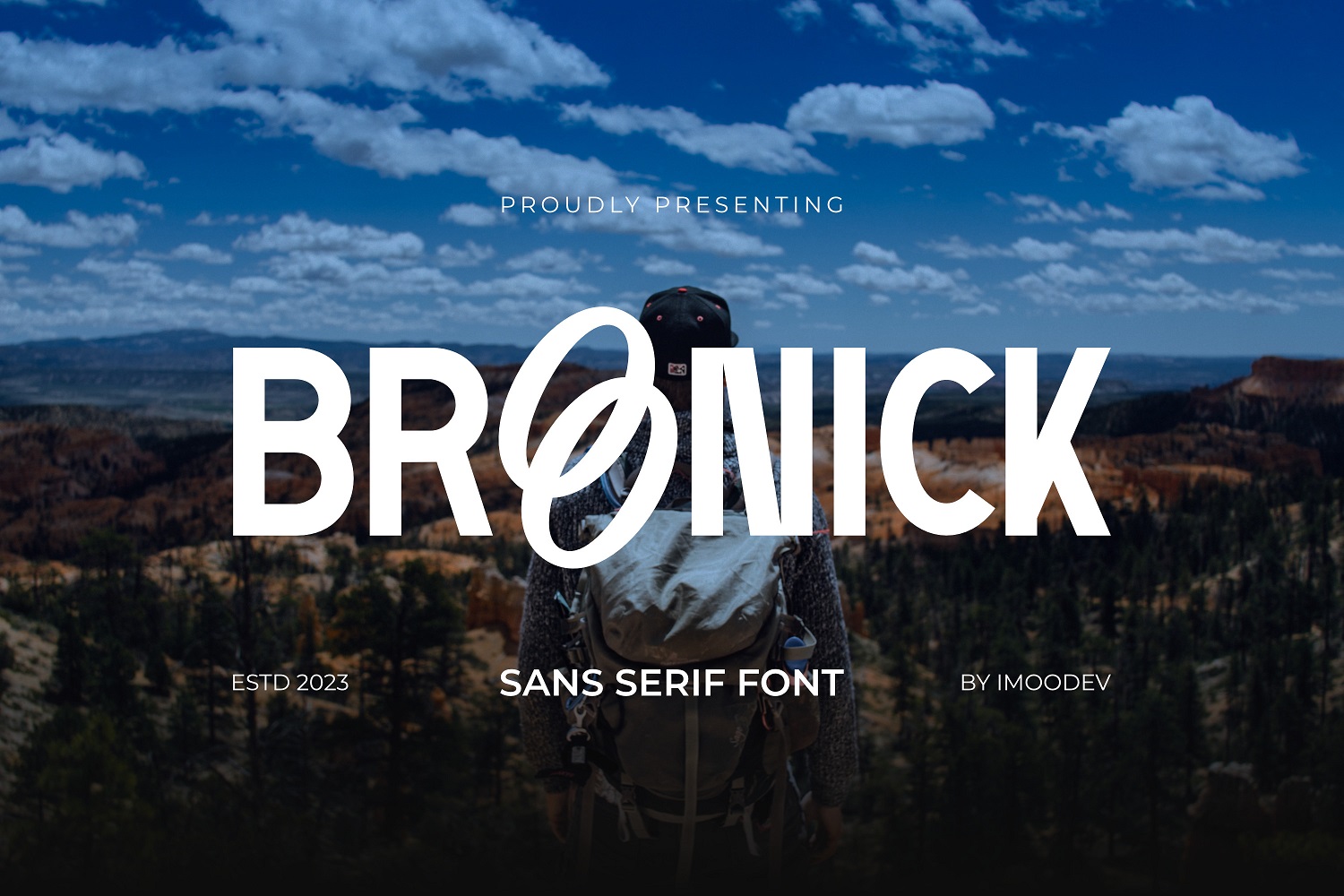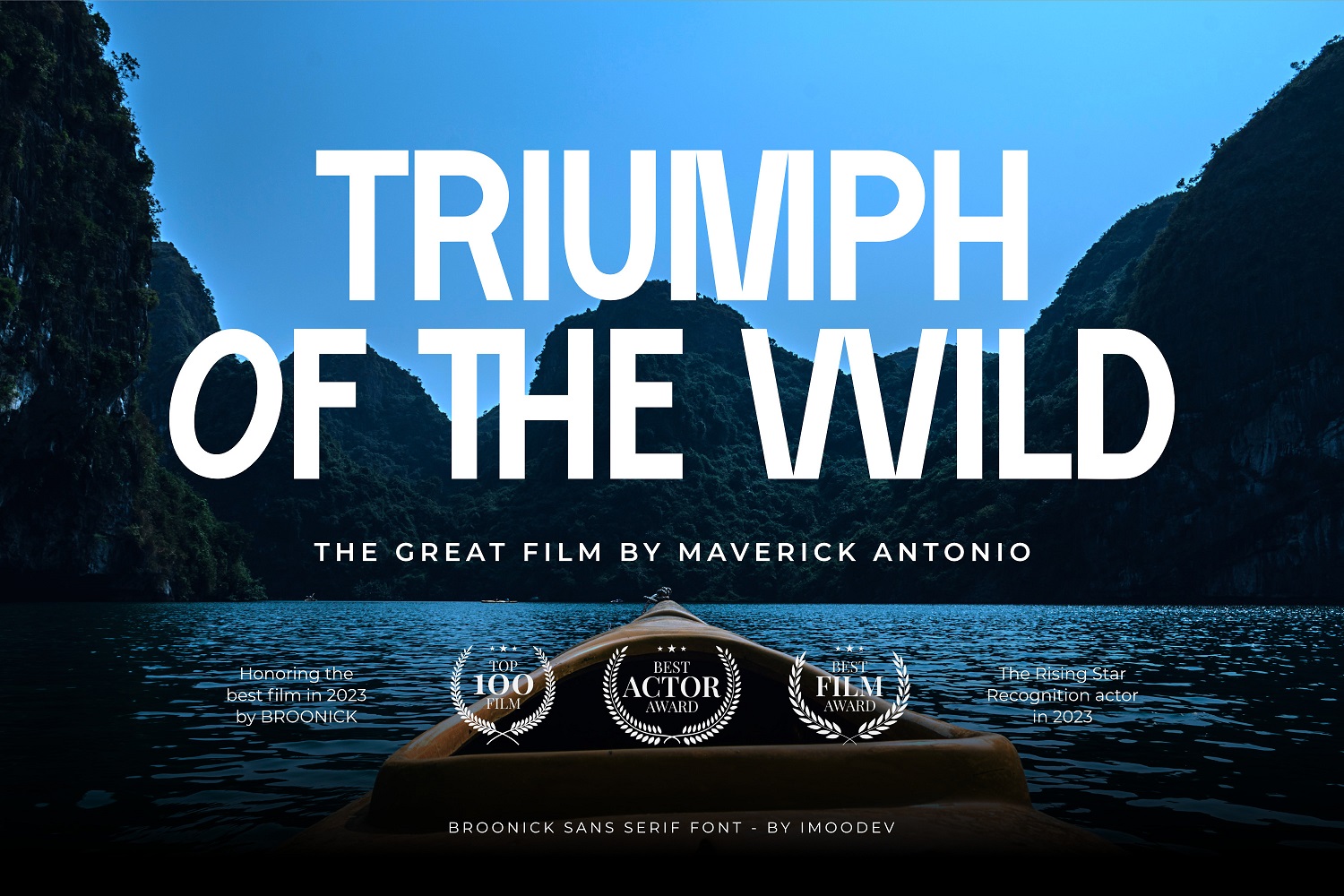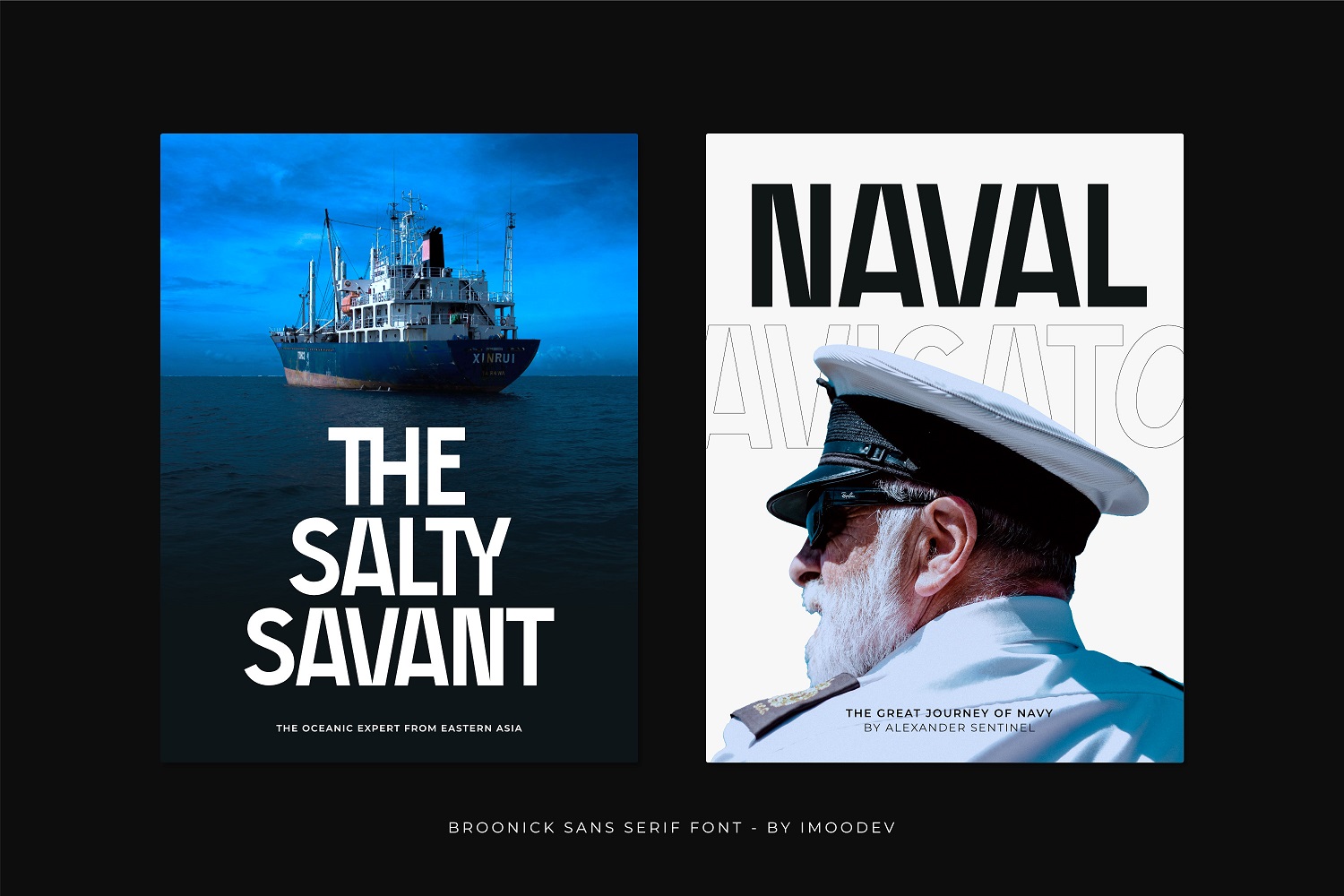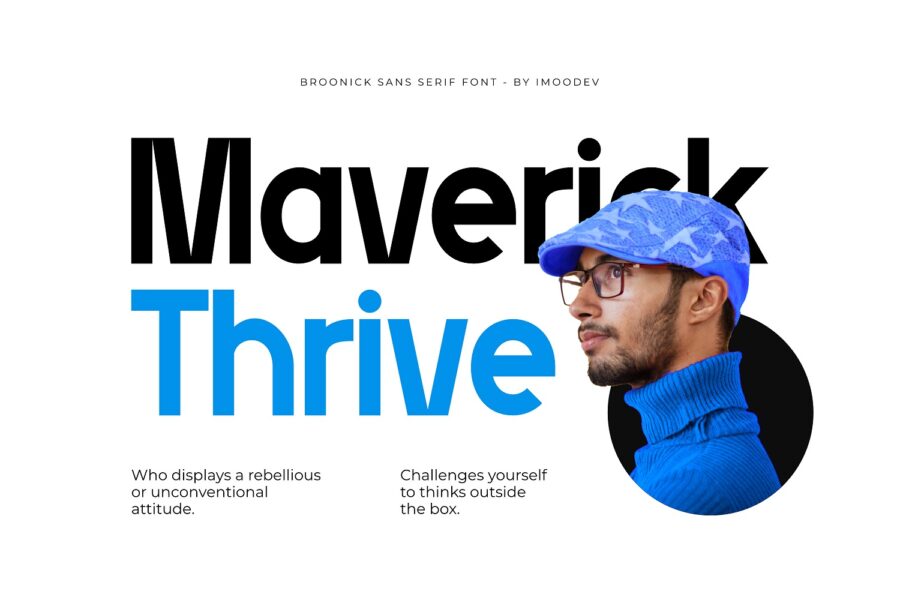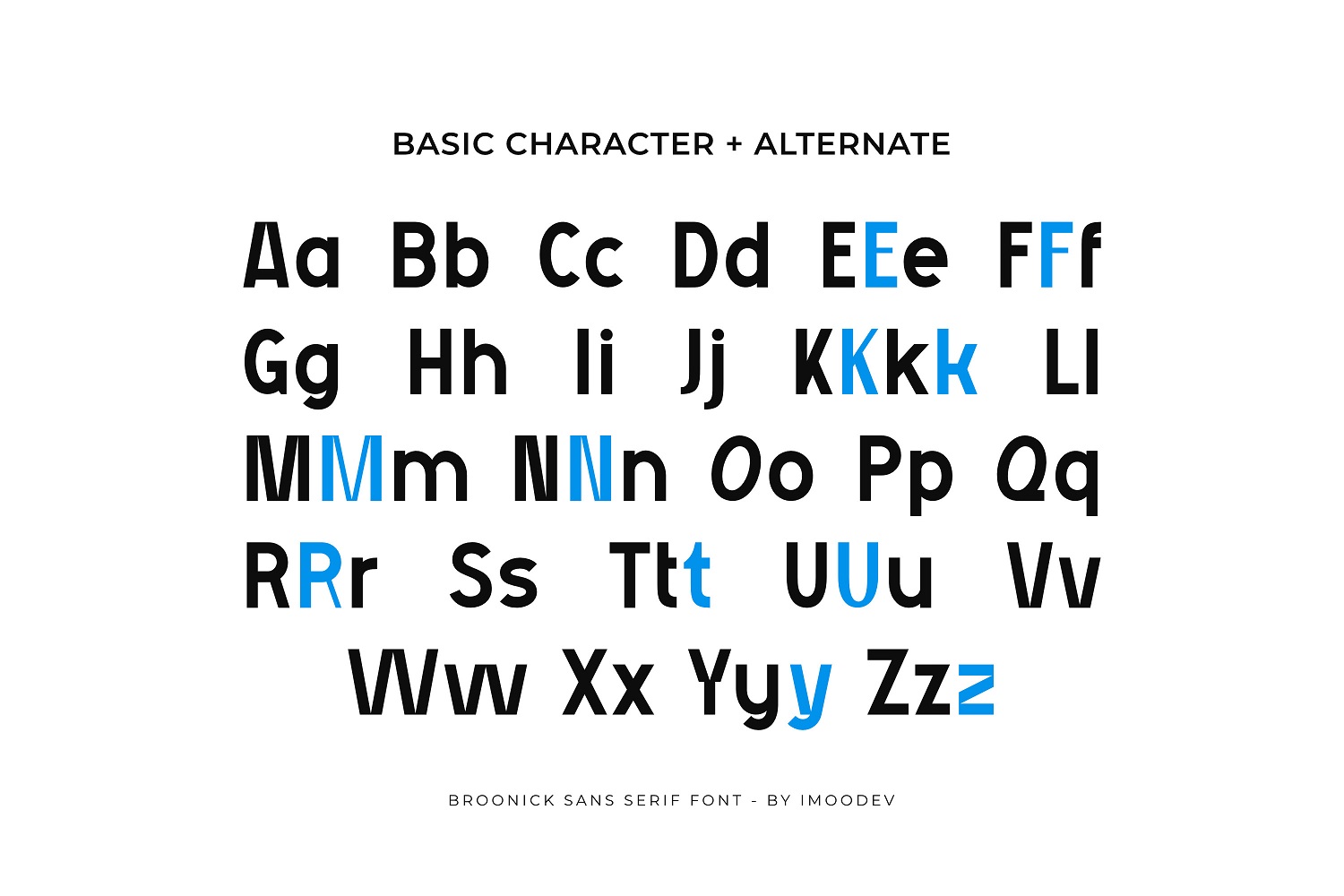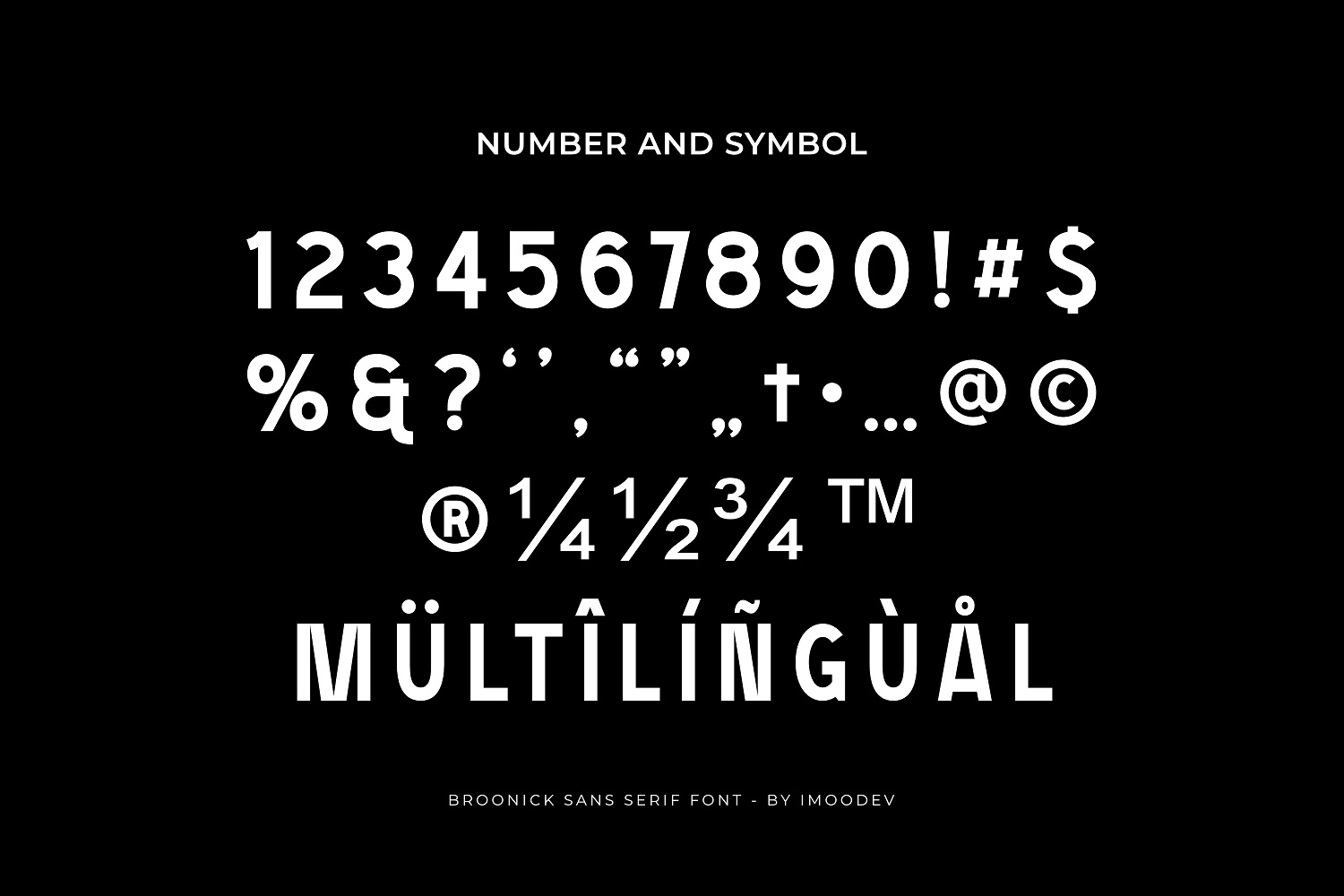
Broonick is a bold and versatile sans serif font designed with a strong modern character and impactful presence. Its clean lines and sharp forms create a sense of confidence, making it perfect for movie titles, posters, branding, and editorial layouts. The balanced proportions allow it to stand out in both large headlines and structured design systems.
Equipped with alternate characters and multilingual support, Broonick adapts seamlessly to various creative needs. Whether used in cinematic designs, magazine covers, or corporate branding, this font delivers clarity, elegance, and bold expression that captures attention effortlessly.
Broonick